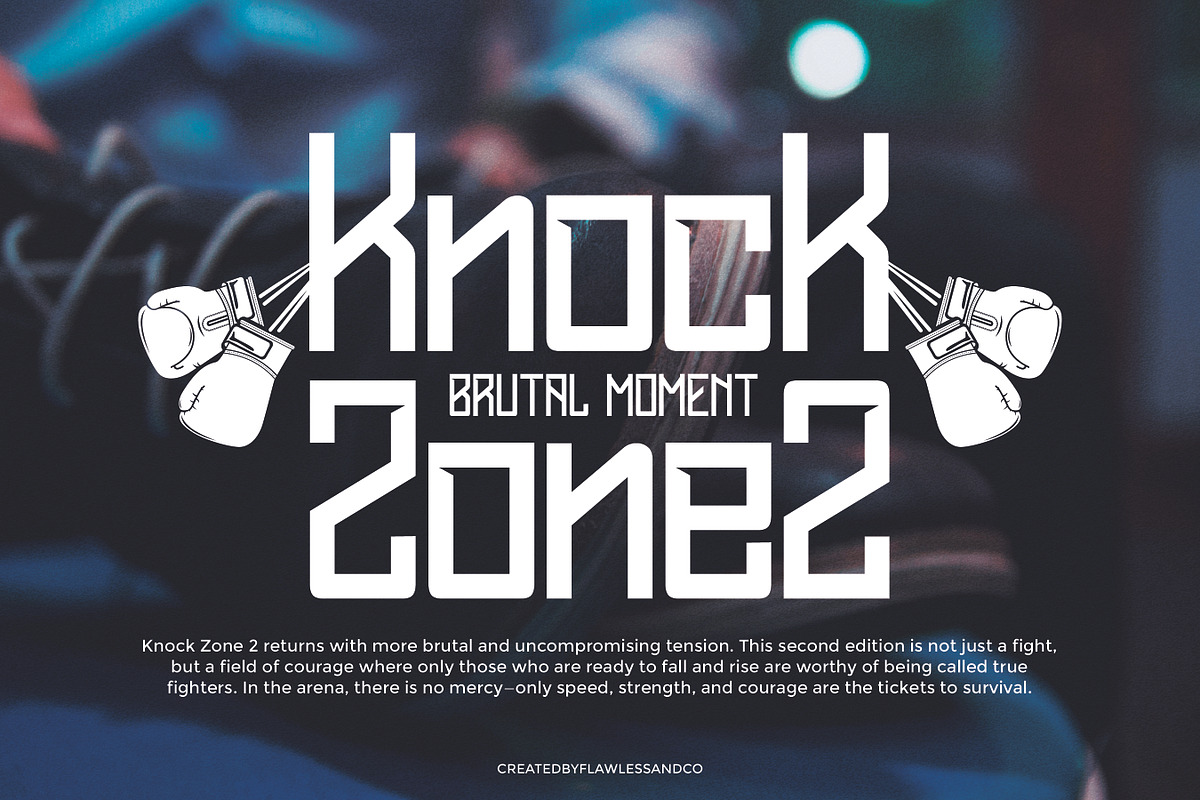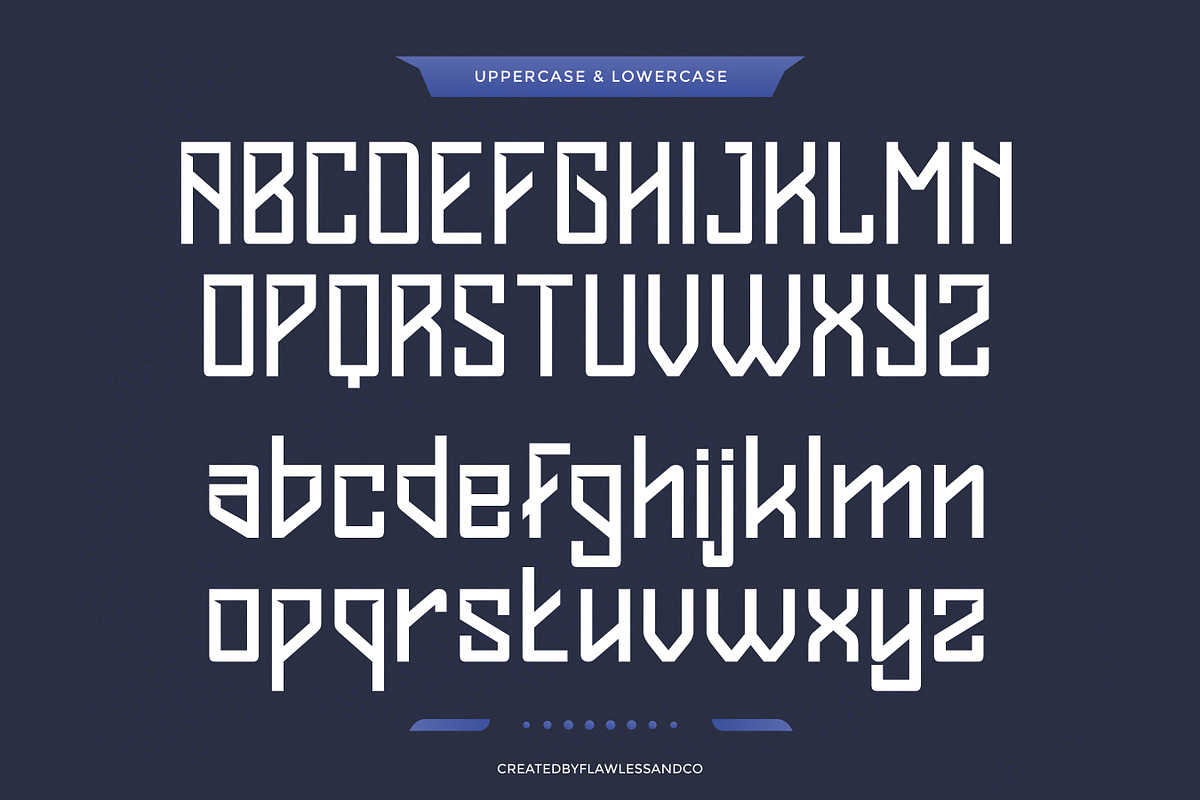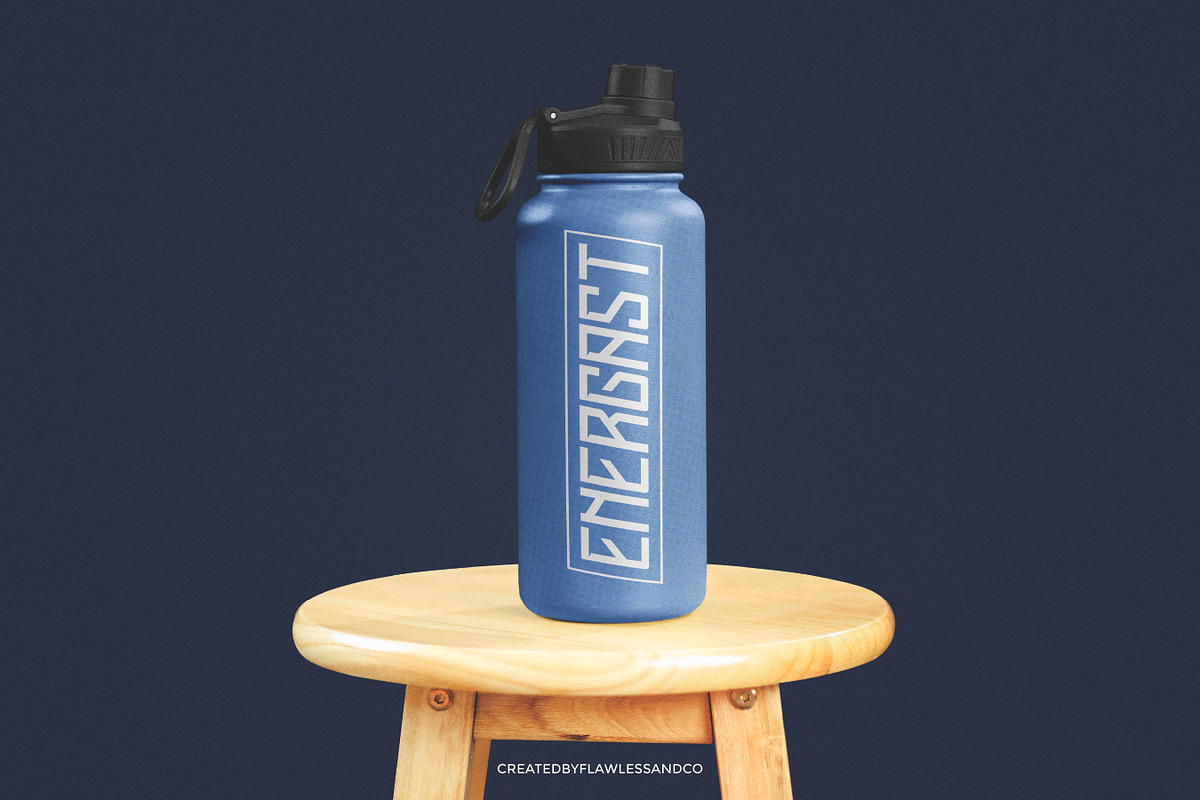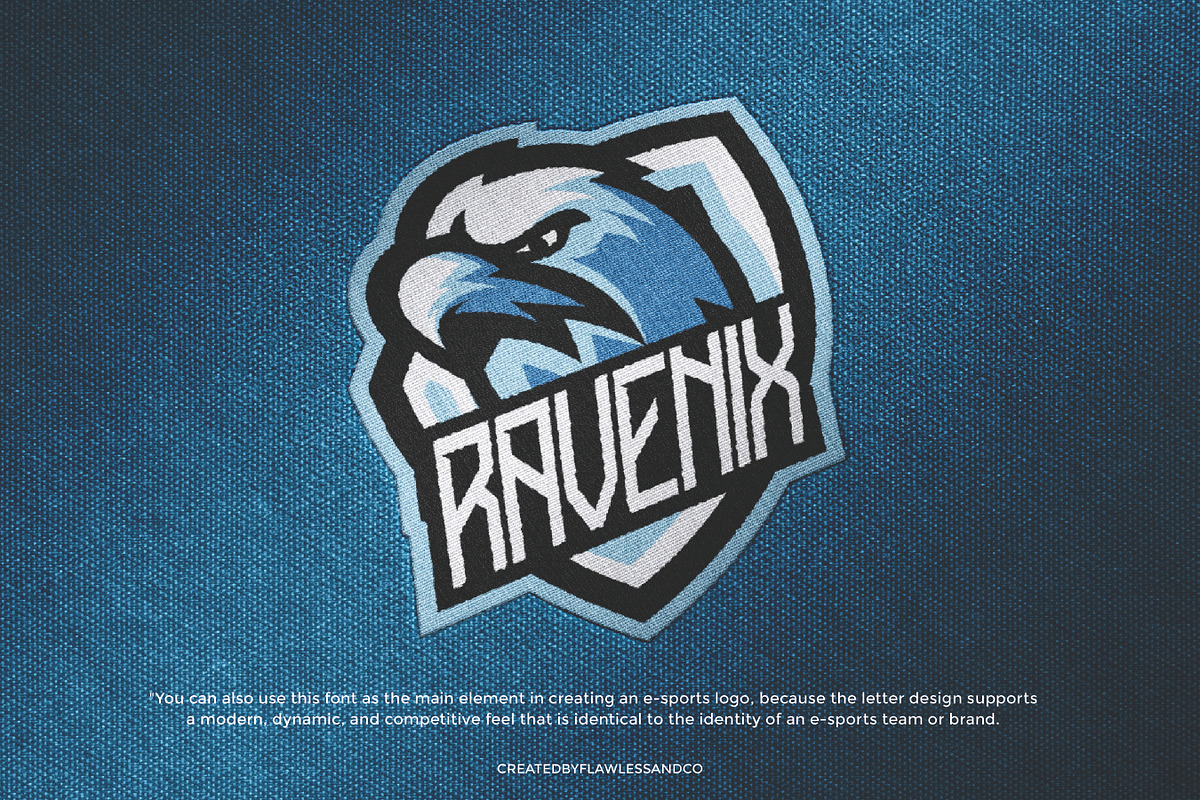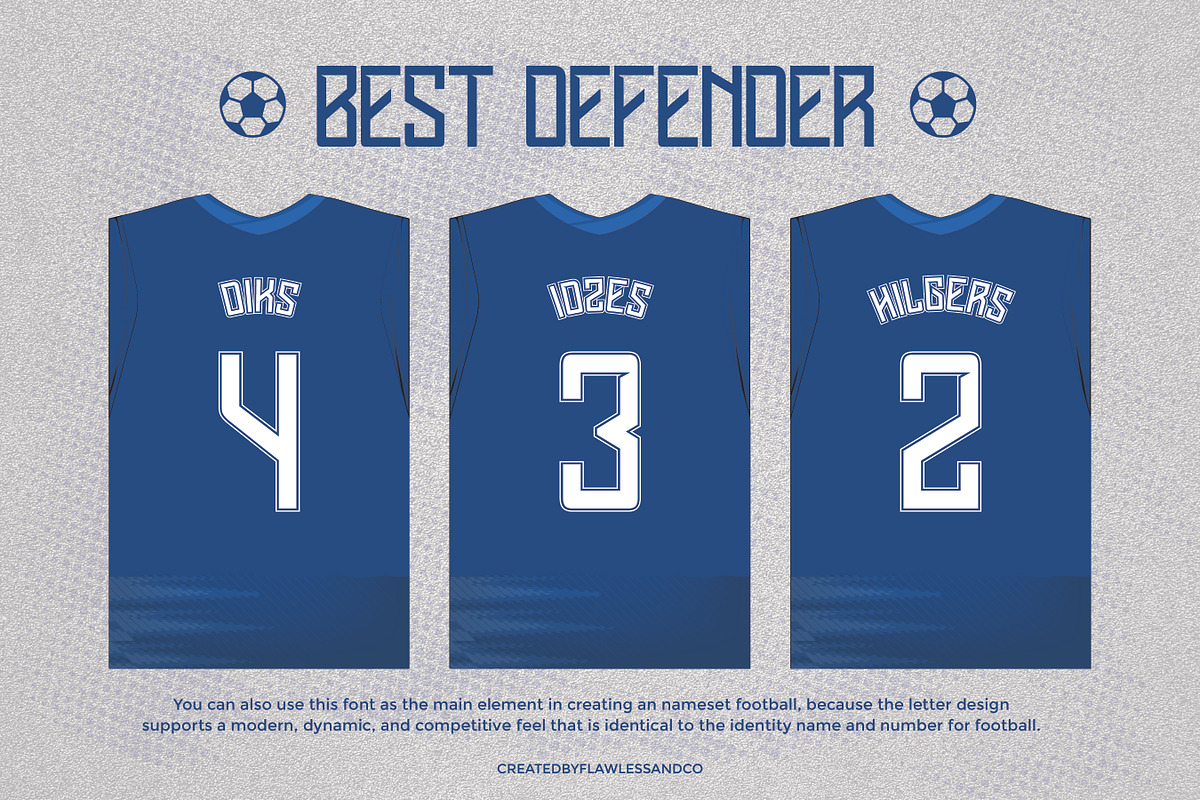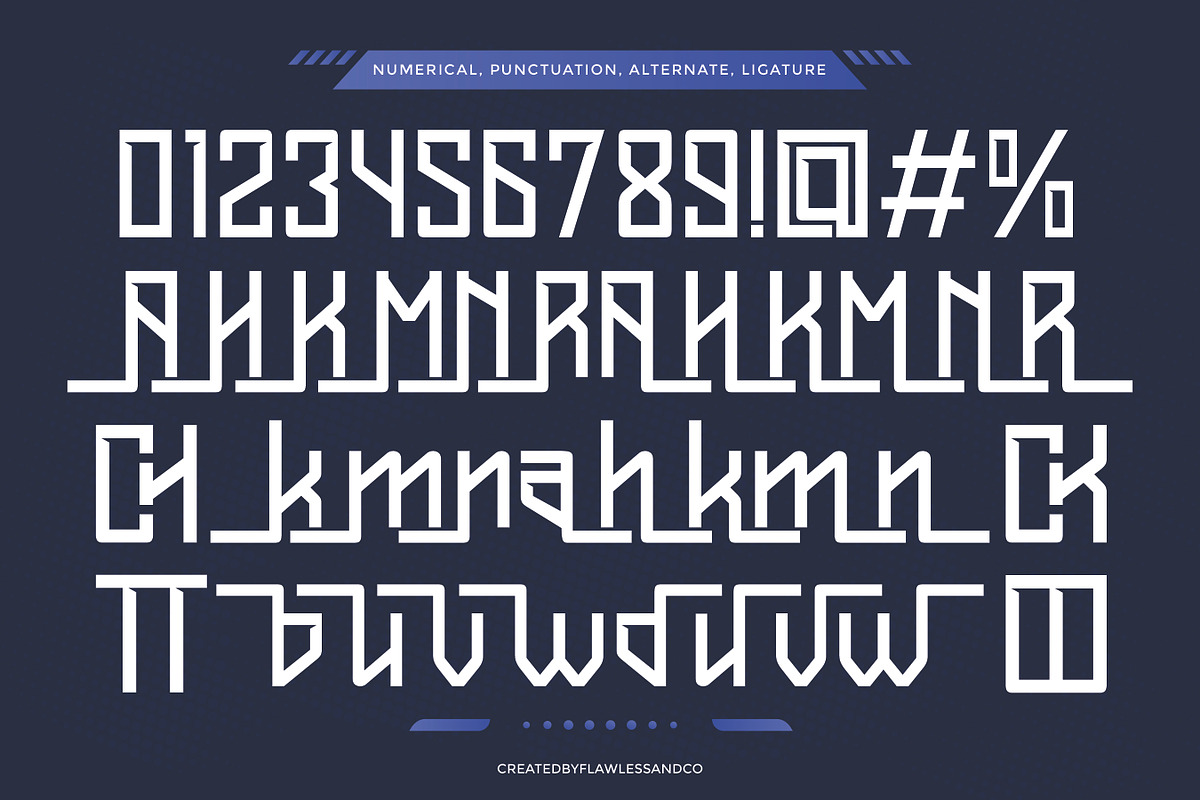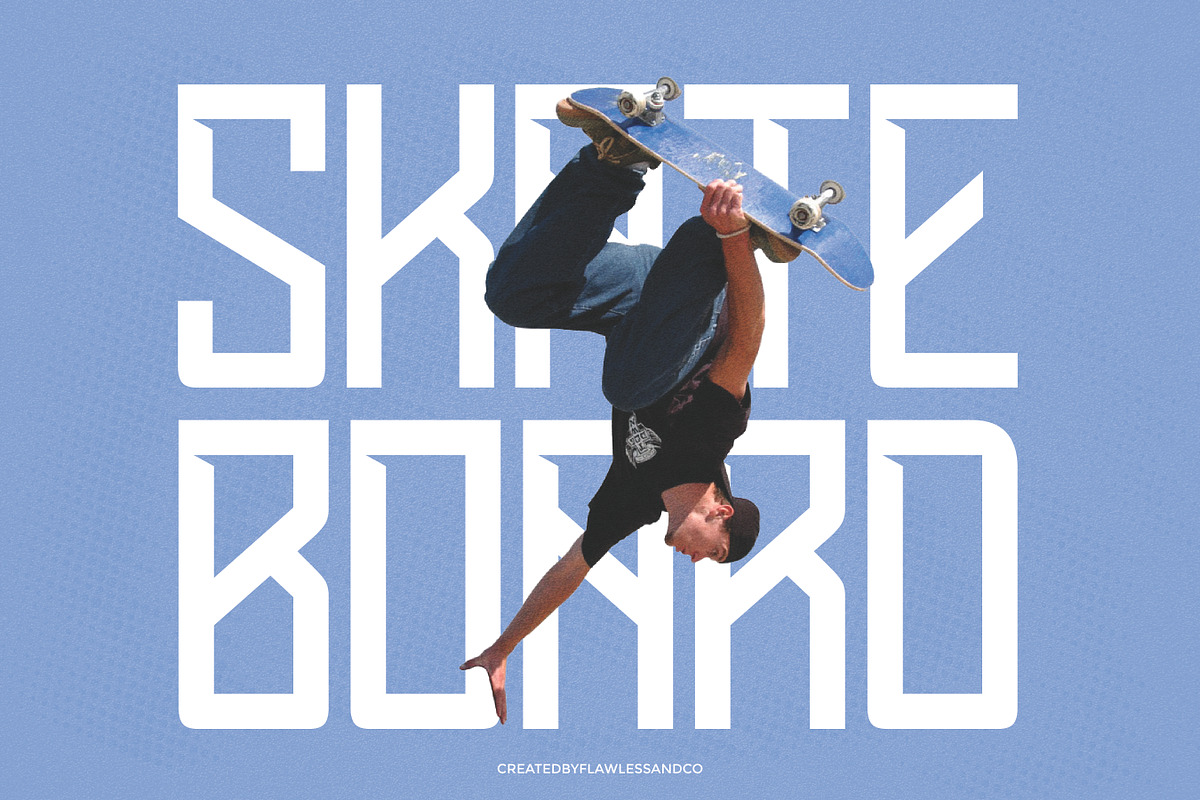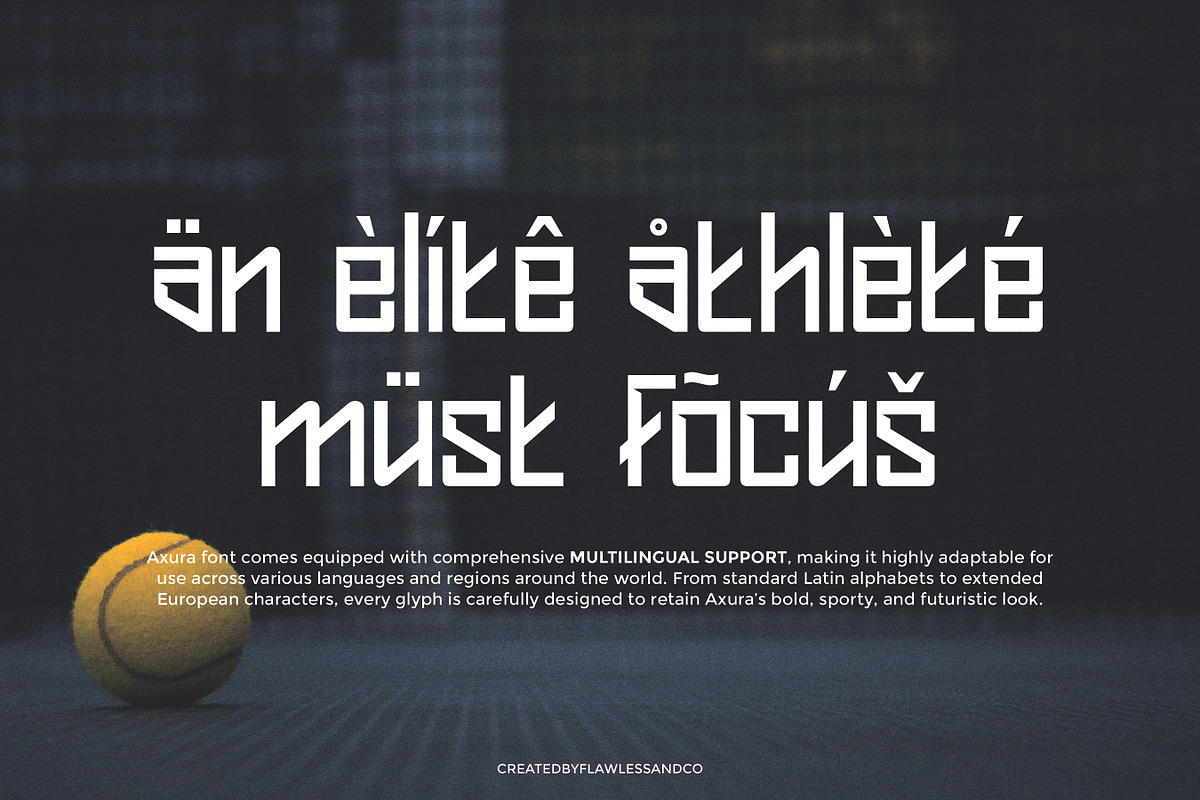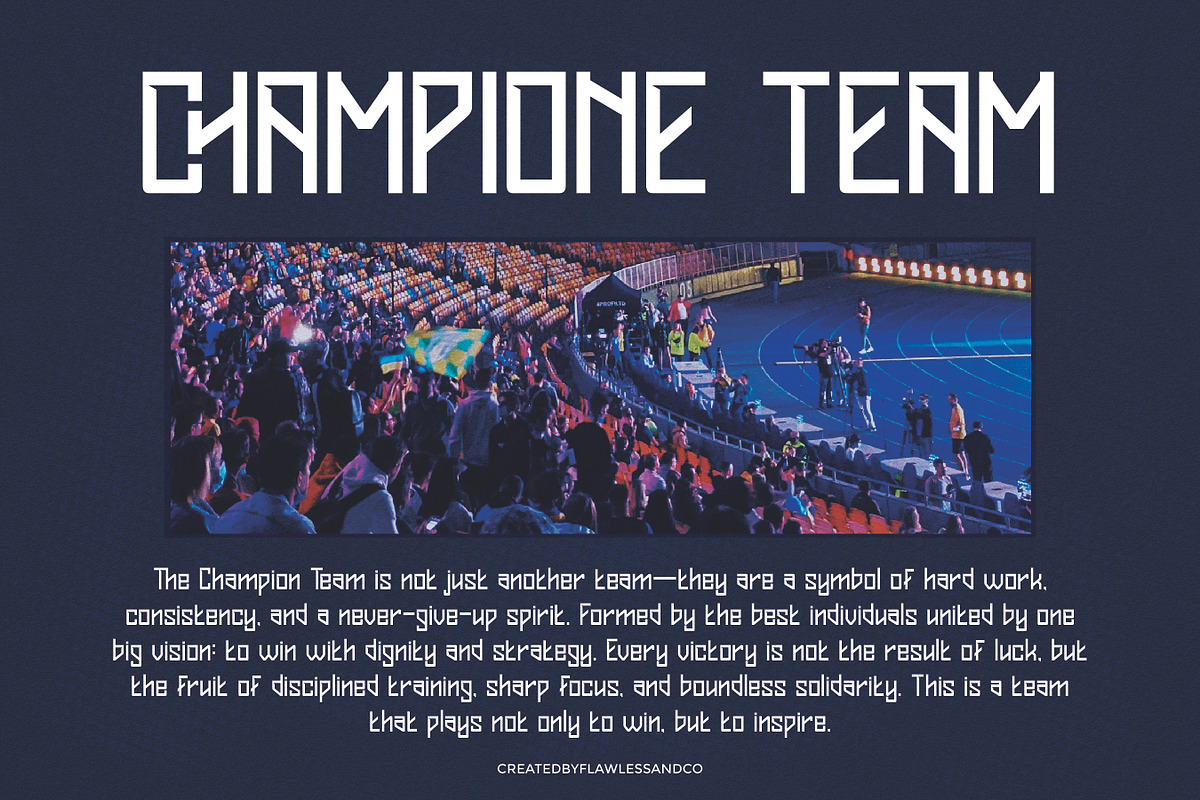
Axura - Sport Display Font
AXURA - Is a Sport Display Font
Axura is a bold and energetic sport display font built for impact. With its strong geometric forms and dynamic structure, AXURA captures the spirit of competition and power. Perfect for sports branding, team logos, event posters, or activewear design, this font adds intensity and confidence to every project. Whether on-screen or in print, AXURA stands tall with a striking, athletic aesthetic that commands attention.
Who Should Use AXURA?
AXURA is made for designers, brands, and creators who want to bring a bold, competitive edge to their visuals. This font is perfect for:
- Sports teams & athletic clubs needing powerful logos and merchandise
- Fitness brands & gym owners looking for energetic, modern type
- Streetwear & activewear designers seeking a strong visual identity
- Event & tournament organizers creating impactful posters and signage
- Gaming & e-sport creatives who want aggressive, high-impact text
- Social media marketers crafting bold, attention-grabbing content
If your project demands strength, structure, and a punch of adrenaline — AXURA is your go-to font.
A Must-Have Font for Brand and Logo Creators and Designers
AXURA is the perfect choice for creatives who need a bold, energetic typeface to elevate their branding and logo projects. With its powerful presence and sharp design, AXURA brings a modern edge to any visual identity — making it a must-have for those who want their work to stand out.
Why Choose AXURA for Brand and Logo Projects?
AXURA delivers a strong, confident visual impact that instantly grabs attention. Its sport-inspired display style blends modern precision with bold character — perfect for creating logos that are dynamic, memorable, and full of energy. Whether you're designing for fitness brands, sports teams, or high-impact product labels.
Suitable For:
- Sports brand identities and logo design
- Activewear and fitness-related packaging
- Gym, boxing, and extreme sport merchandise
- Energy drink and supplement branding
- Posters, banners, and event promotions
- YouTube thumbnails and social media graphics for athletes or sports content
- Esports and gaming team logos
- Streetwear and bold apparel branding